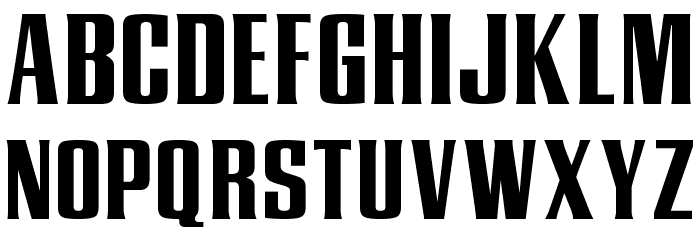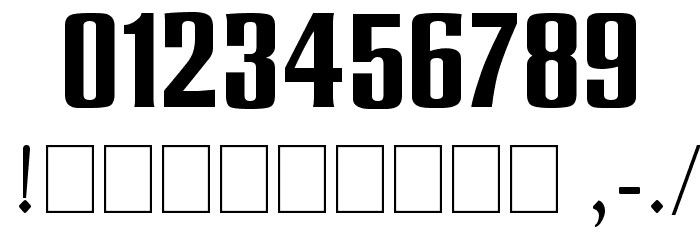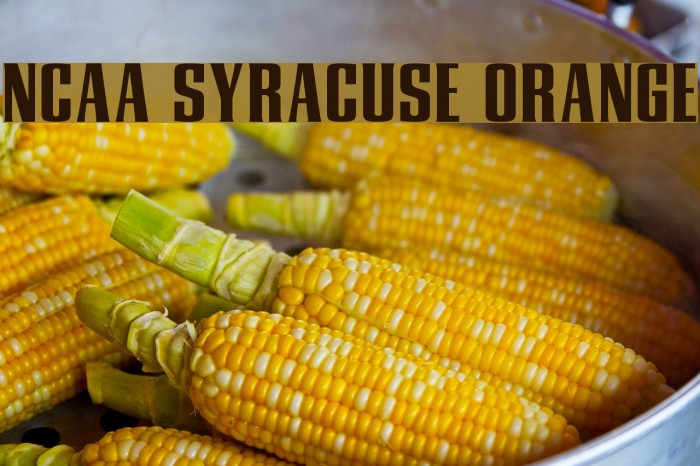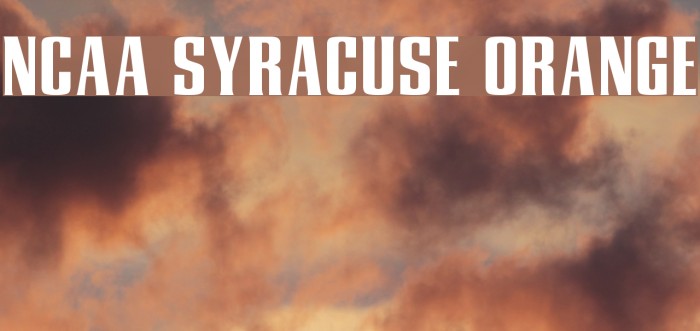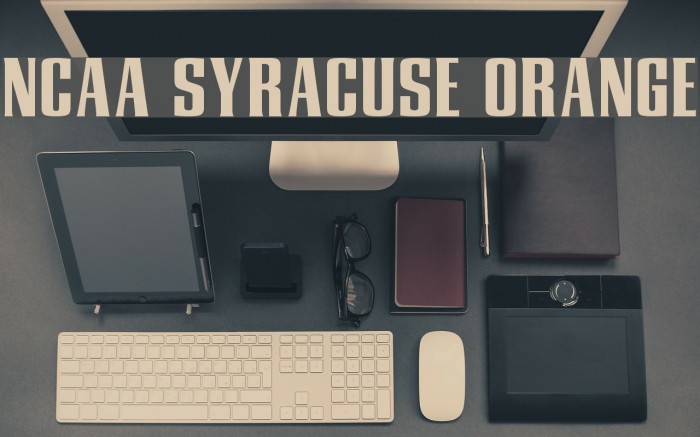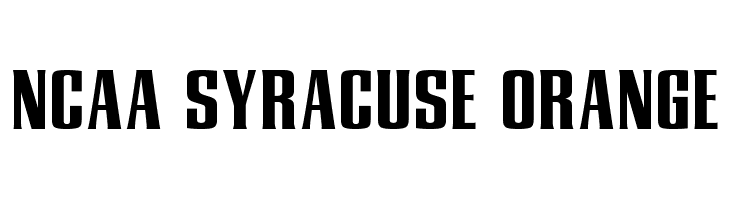
NCAA Syracuse Orange Font
This font features bold, block-like characters with a strong presence, ideal for making a statement. The uppercase letters are uniform in height, with a slight tapering in some strokes that adds a touch of dynamism. The numerals are equally bold, ensuring consistency across different uses. The font's design is clean and straightforward, with minimal embellishments, focusing on readability and impact. Its geometric structure gives it a modern feel, while the solid weight of the characters makes it suitable for attention-grabbing headlines or titles.
A bold, modern font with strong, geometric characters ideal for impactful headlines.
- Proposed Projects: This font is perfect for sports branding, posters, and any project requiring a bold, modern aesthetic.